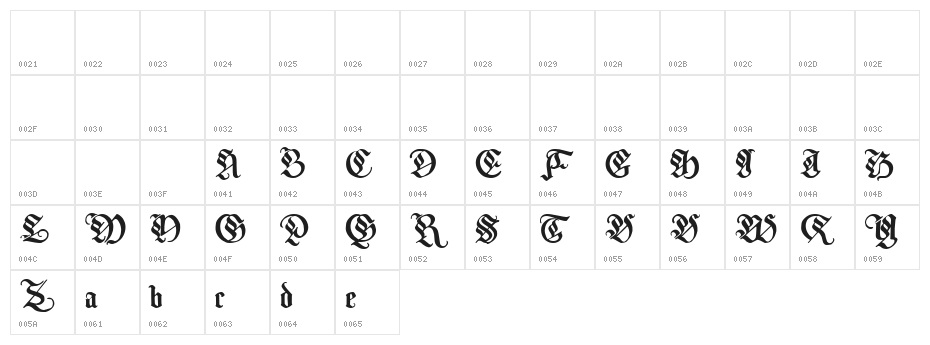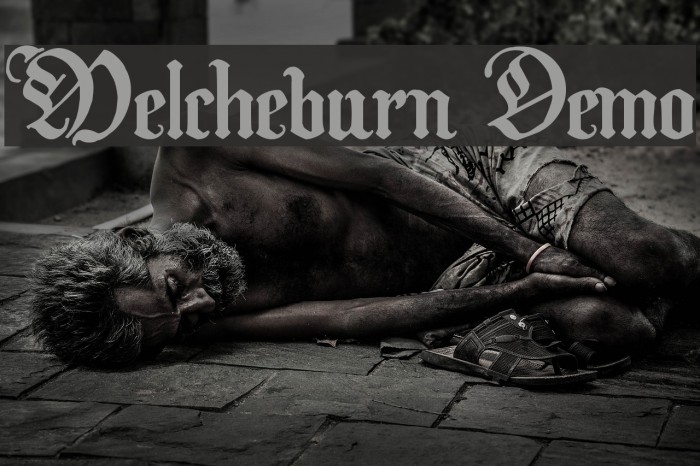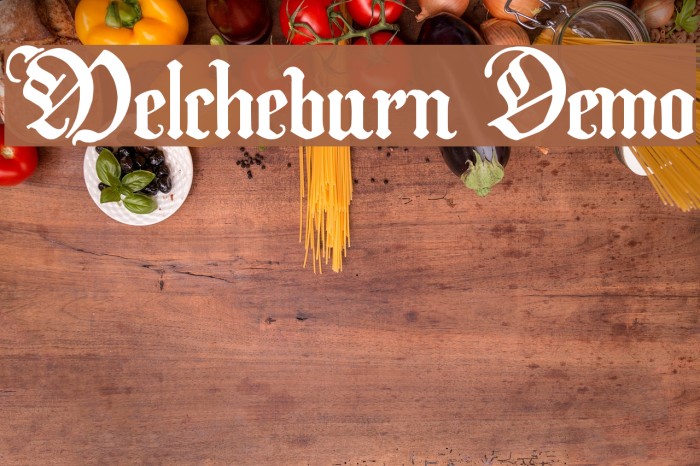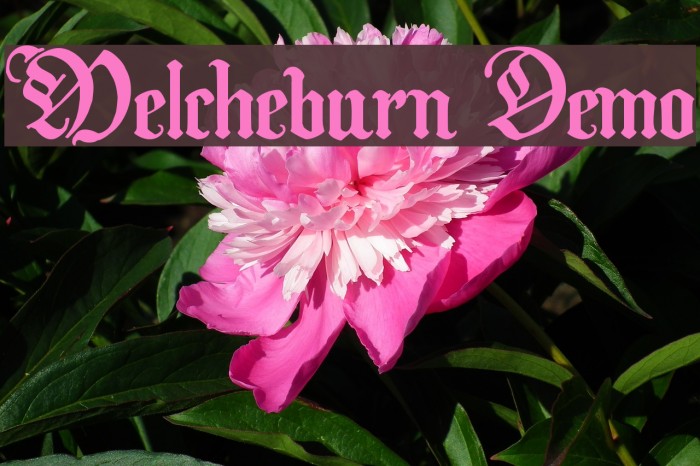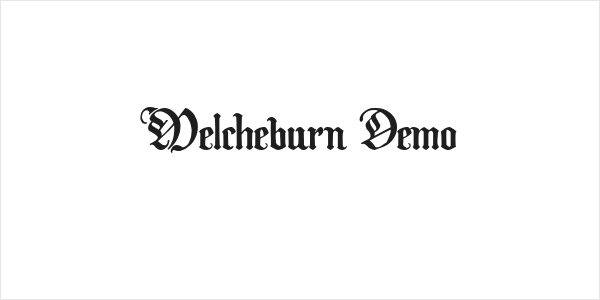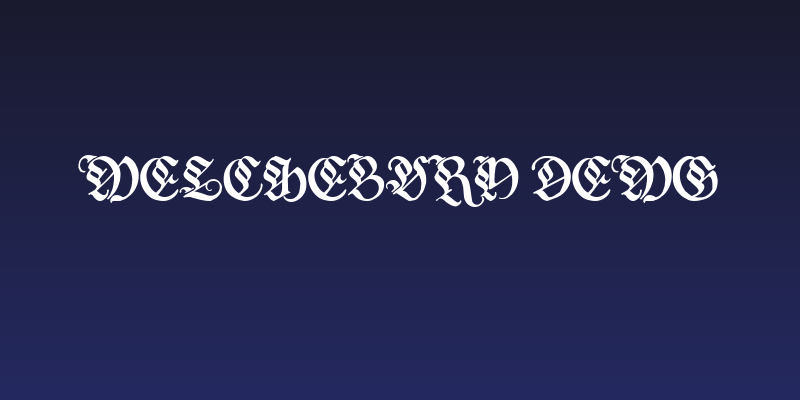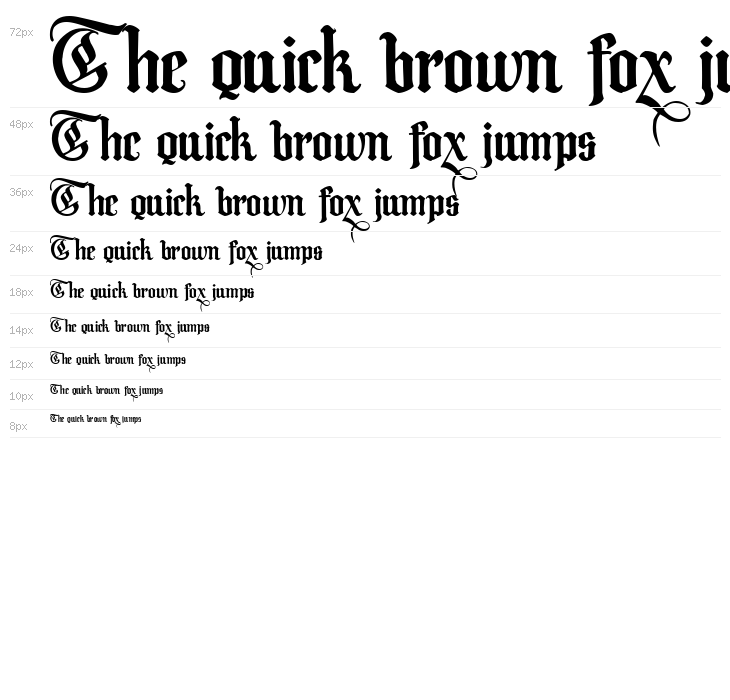
Melcheburn Demo Font
Melcheburn Demo Description
This font embodies the classic elegance of traditional blackletter typefaces, characterized by its intricate and ornate design. The uppercase letters are highly decorative, with elaborate flourishes and sharp angles, giving them a majestic and historical appearance. The lowercase letters maintain a similar style, with a slightly more subdued ornamentation, ensuring readability while preserving the overall aesthetic. The font's bold strokes and high contrast between thick and thin lines contribute to its dramatic and authoritative presence. This style is reminiscent of medieval manuscripts and Gothic architecture, making it ideal for projects that require a touch of historical or formal elegance.
| Proposed Projects | Ideal for historical documents, wedding invitations, certificates, book covers, and branding that requires a vintage or formal touch. |